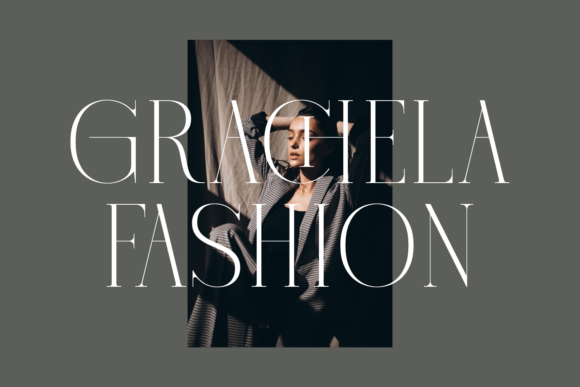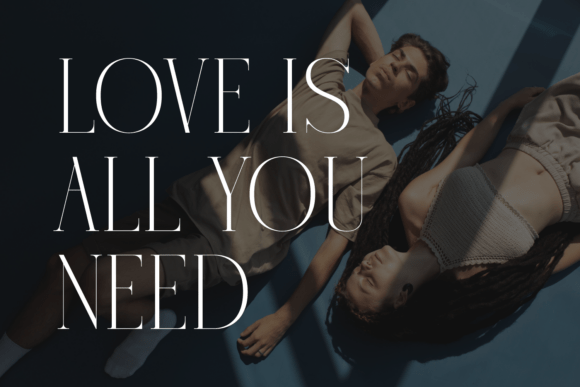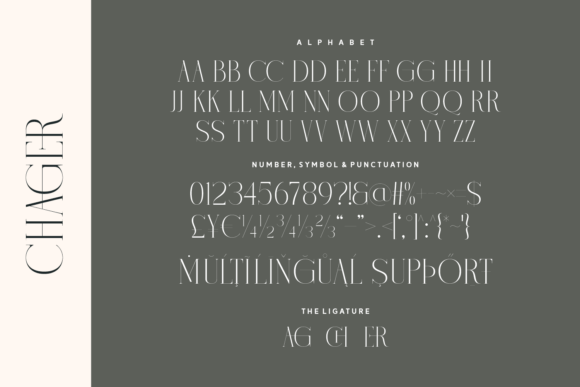
Introduction to Chager Font
Chager is a refined modern serif typeface that exudes grace and fashion-forward minimalism.
With its tall, ultra-thin letterforms and sharp details, Chager is perfect for high-end editorials, fashion branding, luxury packaging, and stylish social media content This typeface brings a delicate balance of elegance and bold personalityโideal for projects that demand sophistication with a modern edge.
Key Features of Chager Font
Why Choose Chager Font?
Chager Font offers exceptional quality and versatility, making it a valuable addition to your design toolkit. Whether you’re creating for personal projects or commercial use, Chager Font delivers professional results.